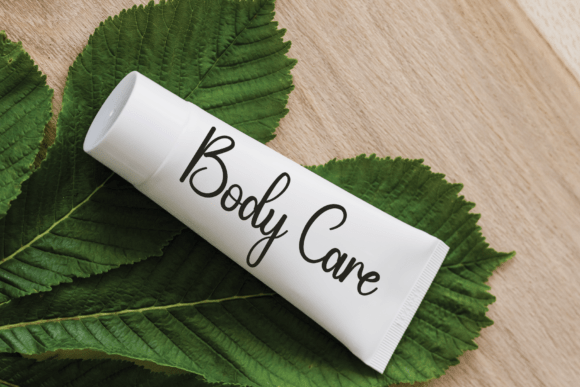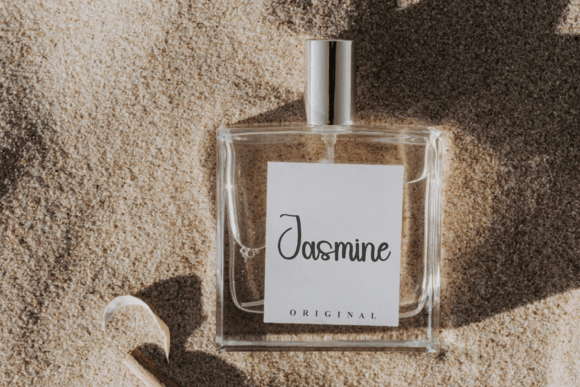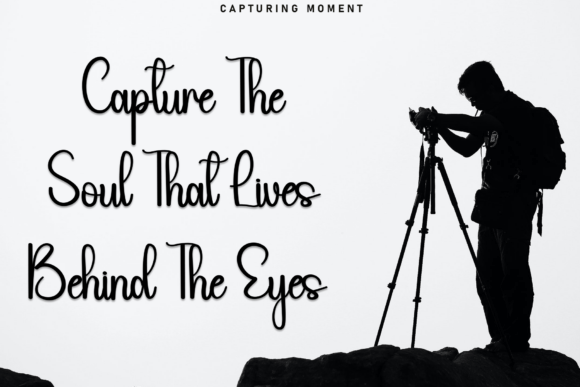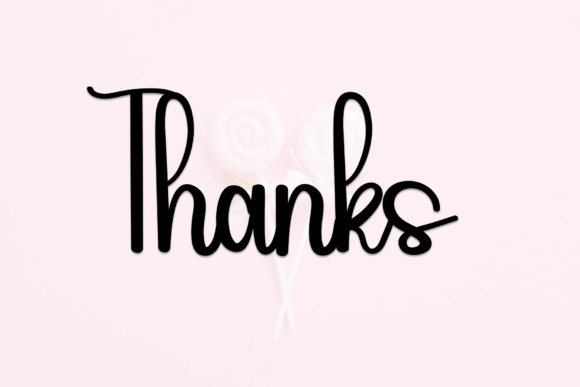
Candy Font: Elevate Your Designs with a Stylish Script Font
In the world of typography, a well-chosen font can make all the difference in creating a lasting impression. For designers and crafters looking to add a touch of elegance and sophistication to their work, Candy Font is an excellent choice. This stylish script font is designed to exude creativity and modern elegance, making it perfect for a wide range of design applications.
The Beauty of Hand-Drawn Calligraphy with a Contemporary Flair
Candy Font is a beautiful script font that captures the essence of hand-drawn calligraphy with a contemporary twist. Its flowing strokes, graceful curves, and expressive letterforms give it a unique and artistic feel that is sure to elevate any design. The font’s natural rhythm and refined details make it a versatile choice for various design projects, from logos and invitations to packaging and social media graphics.
Key Features of Candy Font
- Flowing Strokes: Candy Font features smooth, flowing strokes that give it a natural and elegant look.
- Graceful Curves: The font’s curves are carefully crafted to create a sense of fluidity and movement.
- Expressive Letterforms: Each letterform is uniquely designed to convey a sense of personality and style.
- Modern Elegance: The font’s contemporary flair makes it perfect for modern designs that require a touch of sophistication.
Candy Font is an excellent choice for designers and crafters looking to add an artistic and sophisticated touch to their work. Here are some design applications where Candy Font truly shines:
- Logos: Create a lasting impression with a custom logo that features Candy Font’s elegant and modern style.
- Invitations: Add a touch of sophistication to your invitations, whether it’s for a wedding, birthday party, or corporate event.
- Packaging: Elevate your product packaging with a font that exudes elegance and refinement.
- Social Media Graphics: Create engaging social media graphics that showcase your brand’s personality and style.
Why Choose Candy Font?
With so many fonts available, why choose Candy Font? Here are just a few reasons why designers and crafters love this stylish script font:
- Unique and Artistic: Candy Font’s hand-drawn calligraphy style gives it a unique and artistic feel that sets it apart from other fonts.
- Versatile: The font’s natural rhythm and refined details make it suitable for a wide range of design applications.
- Elegant and Sophisticated: Candy Font’s modern elegance and refined style make it perfect for designs that require a touch of sophistication.
Tips for Using Candy Font Effectively
To get the most out of Candy Font, here are some tips for using it effectively:
- Pair it with a Simple Font: Pair Candy Font with a simple font to create visual contrast and make your design stand out.
- Use it Sparingly: Use Candy Font sparingly to create emphasis and add a touch of elegance to your design.
In conclusion, Candy Font is a stylish script font that is sure to elevate your designs with its modern elegance and artistic flair. With its flowing strokes, graceful curves, and expressive letterforms, it’s perfect for a wide range of design applications, from logos and invitations to packaging and social media graphics. Whether you’re a designer or crafter, Candy Font is an excellent choice for anyone looking to add a touch of sophistication and elegance to their work.